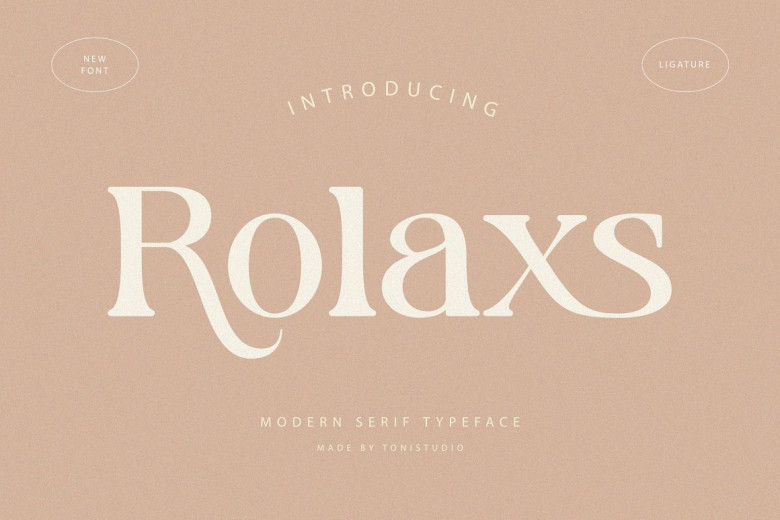
Rolaxs Font
Rolaxs features a serif font that is modern in style, with thicker lines but with blunted ends at their meeting points to achieve both modern and retro designs. Included binders can help create amazing logos, quotes and blog posts as well as branding projects, magazine images, wedding invitations and much more.
Rolaxs Serif Font